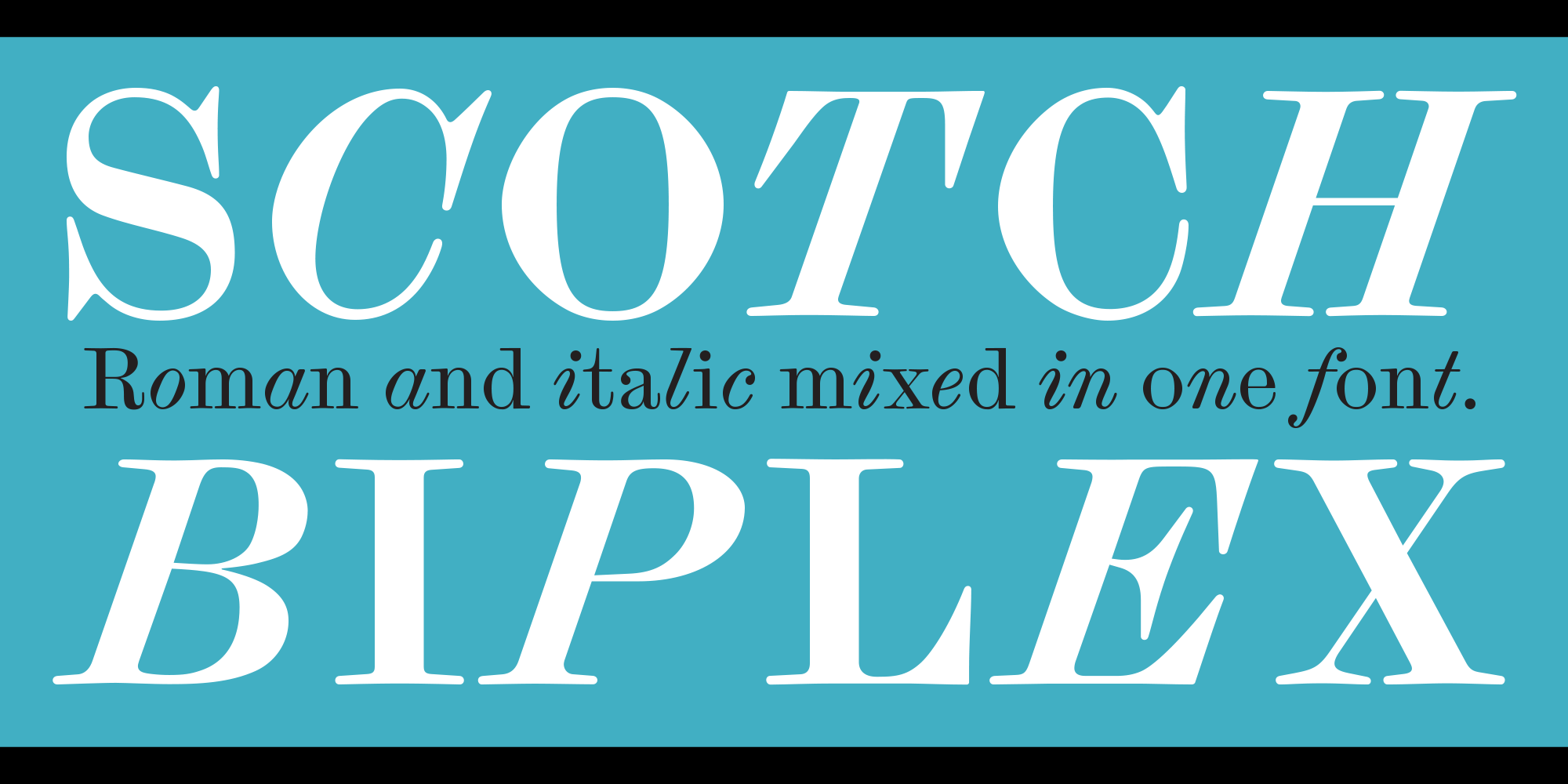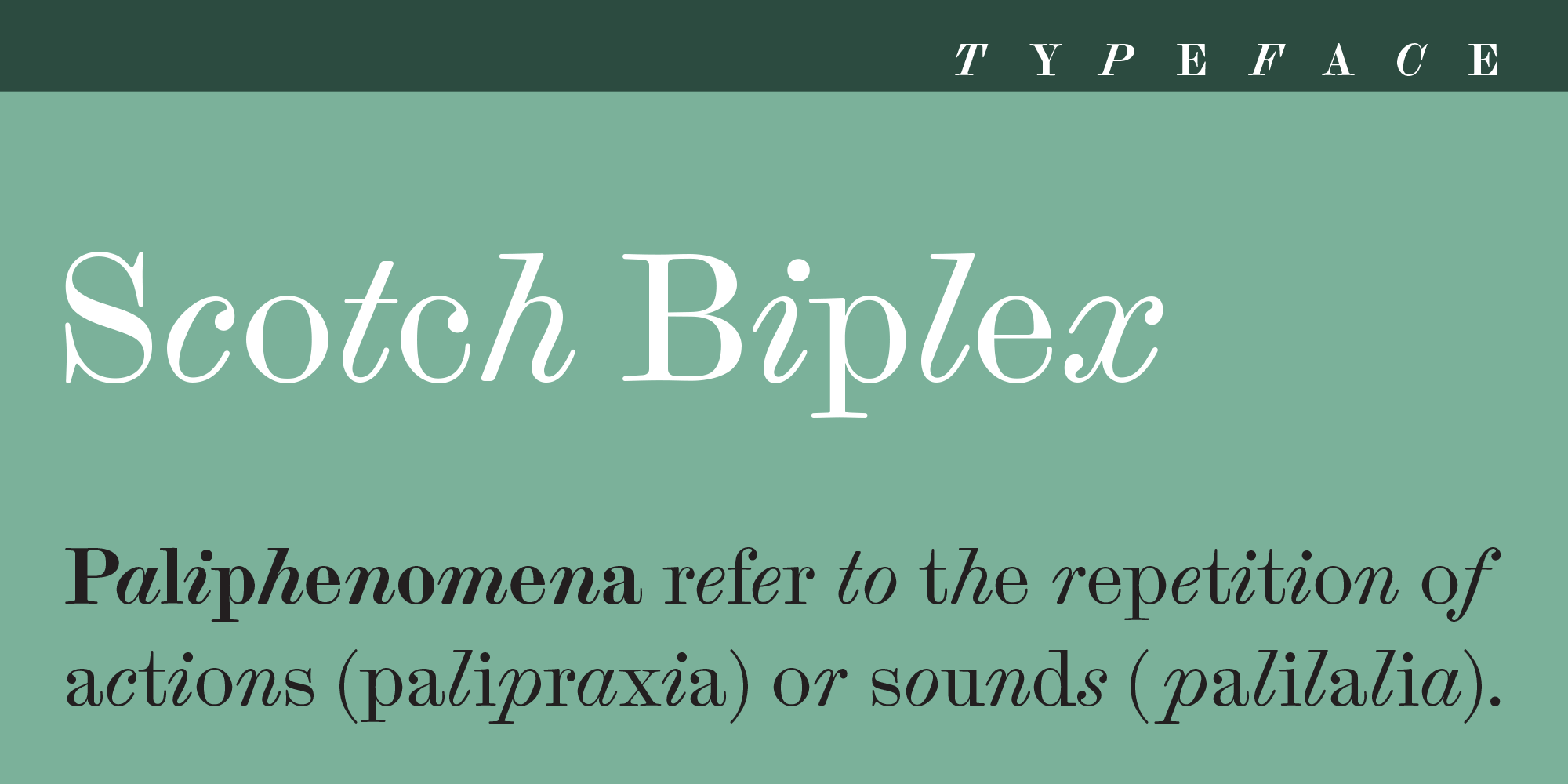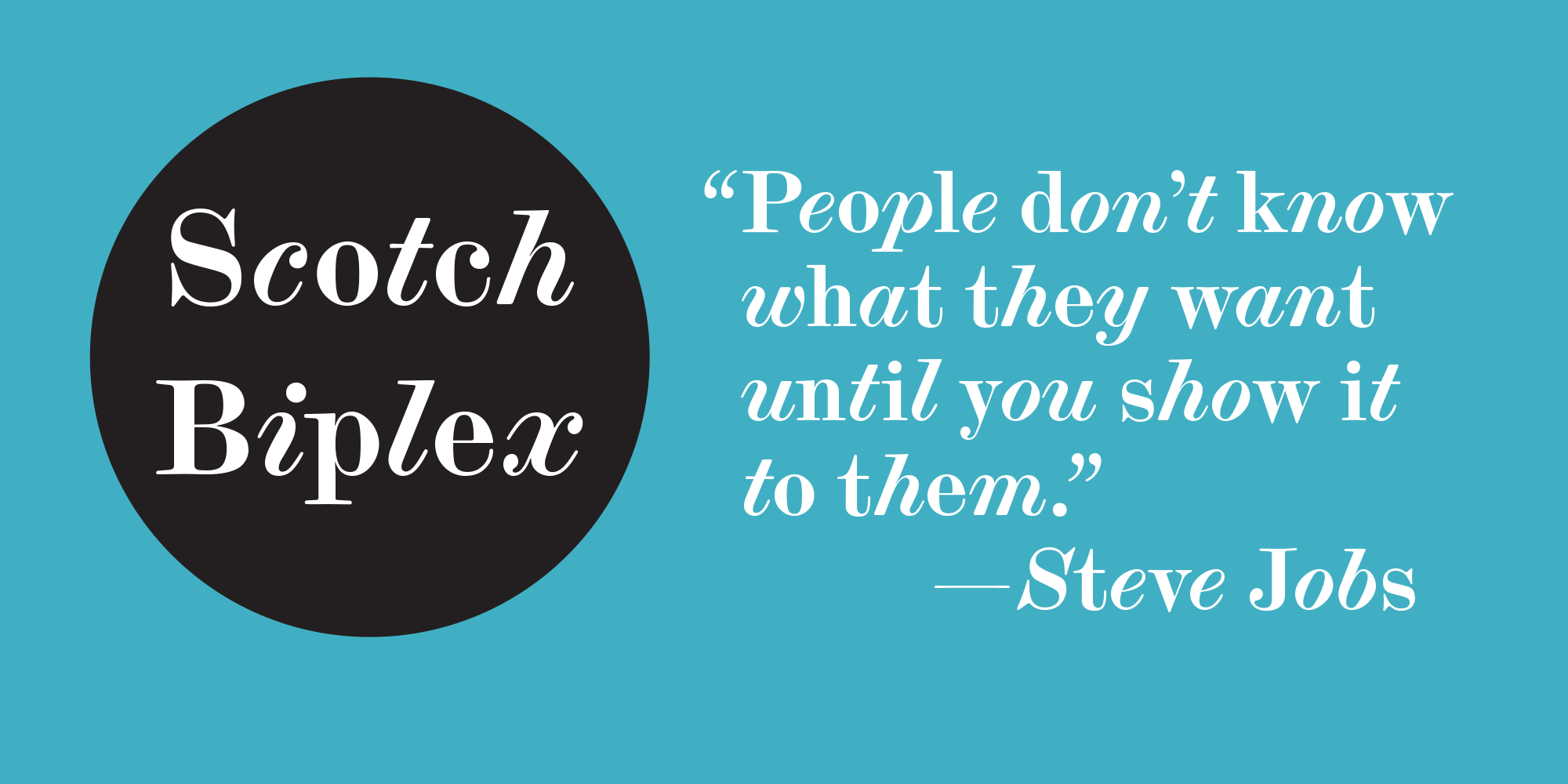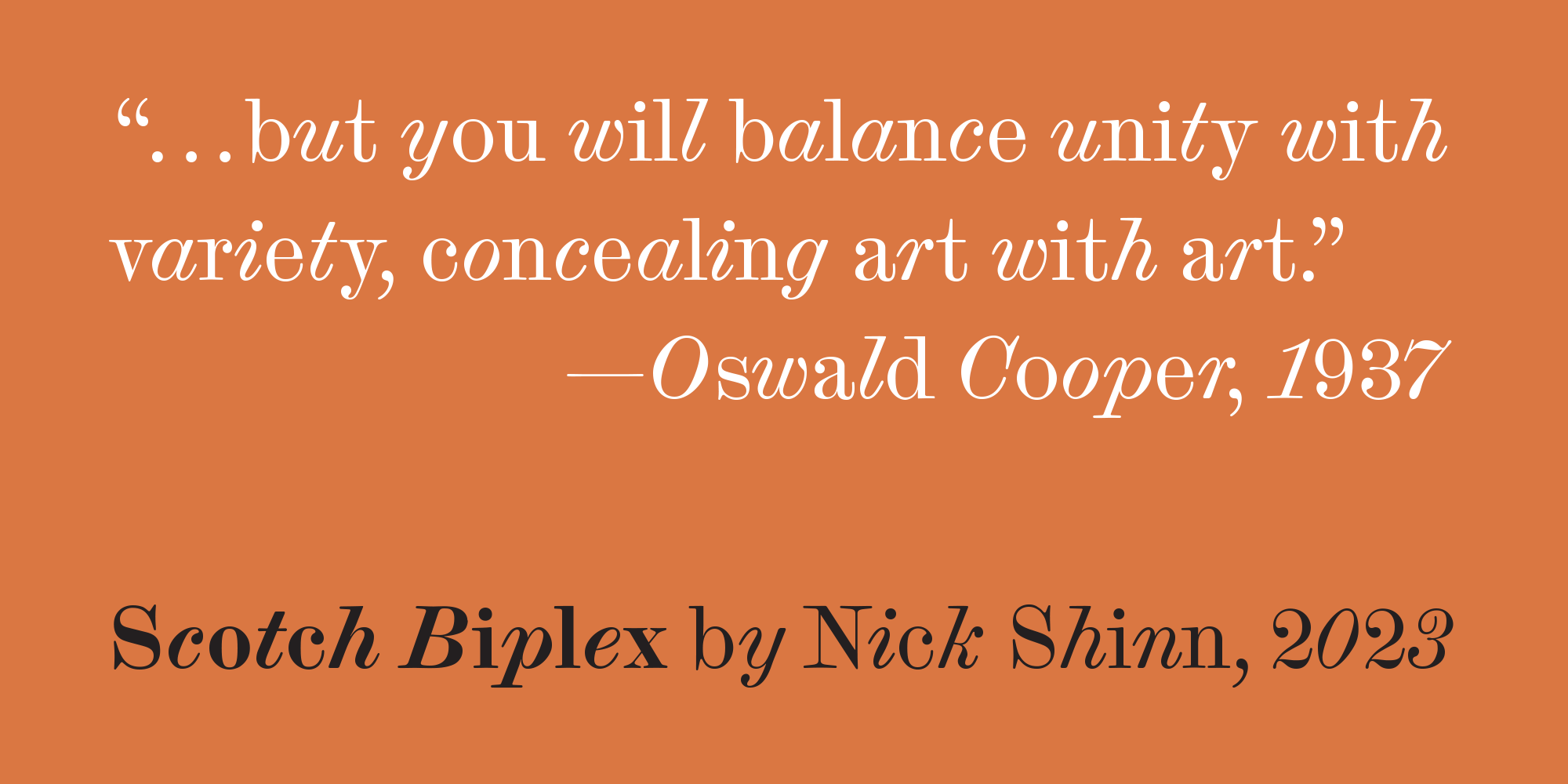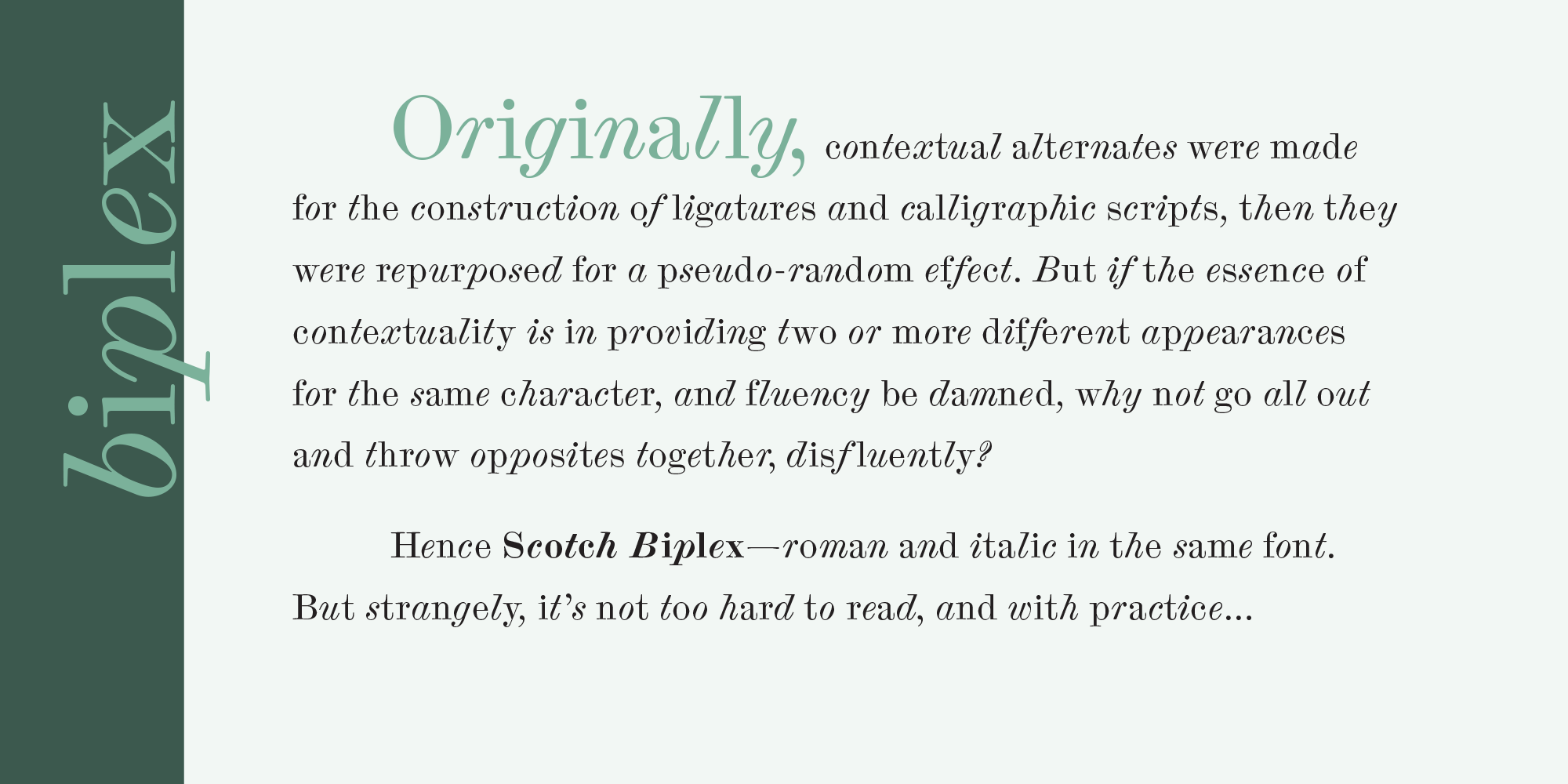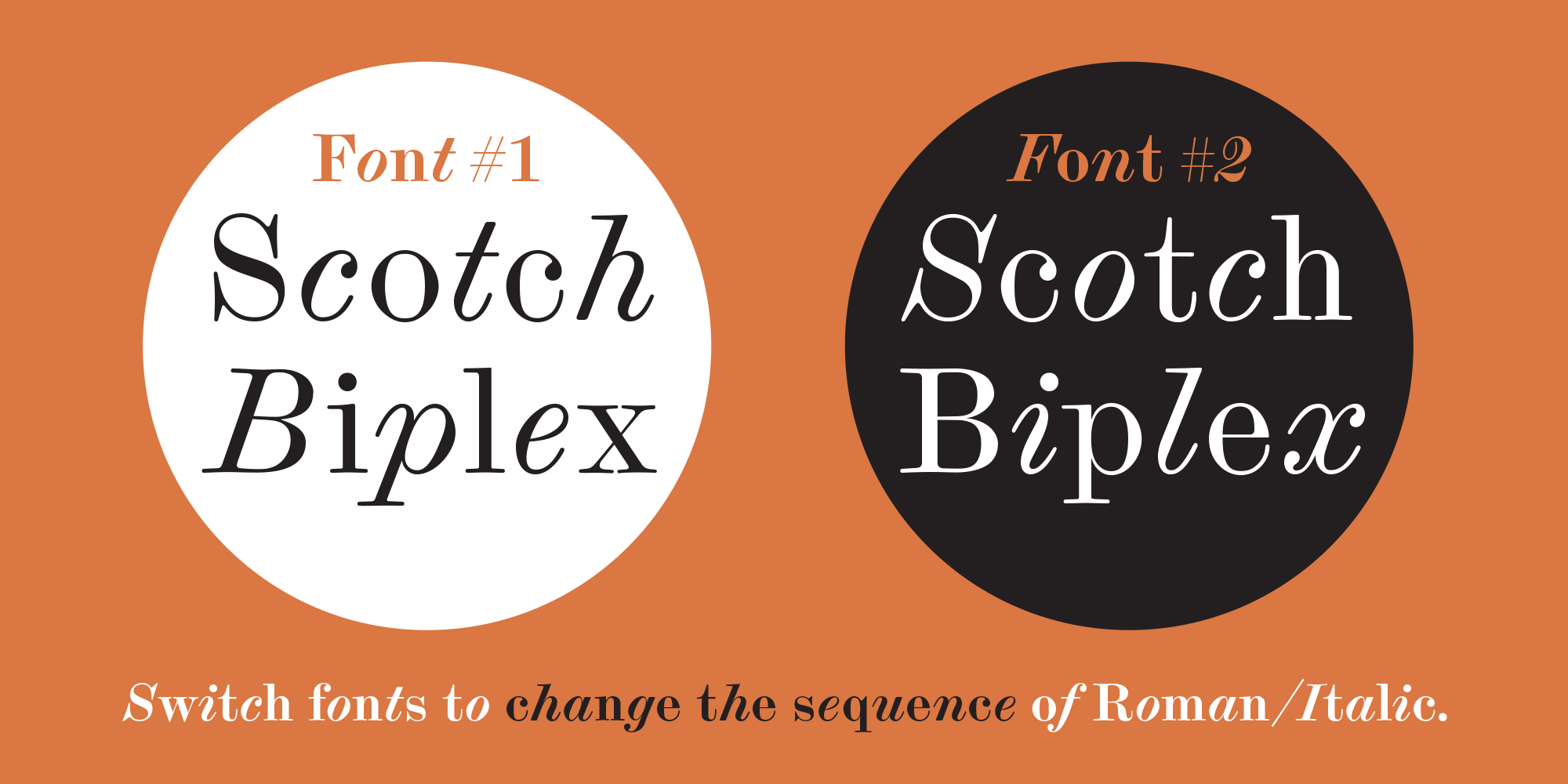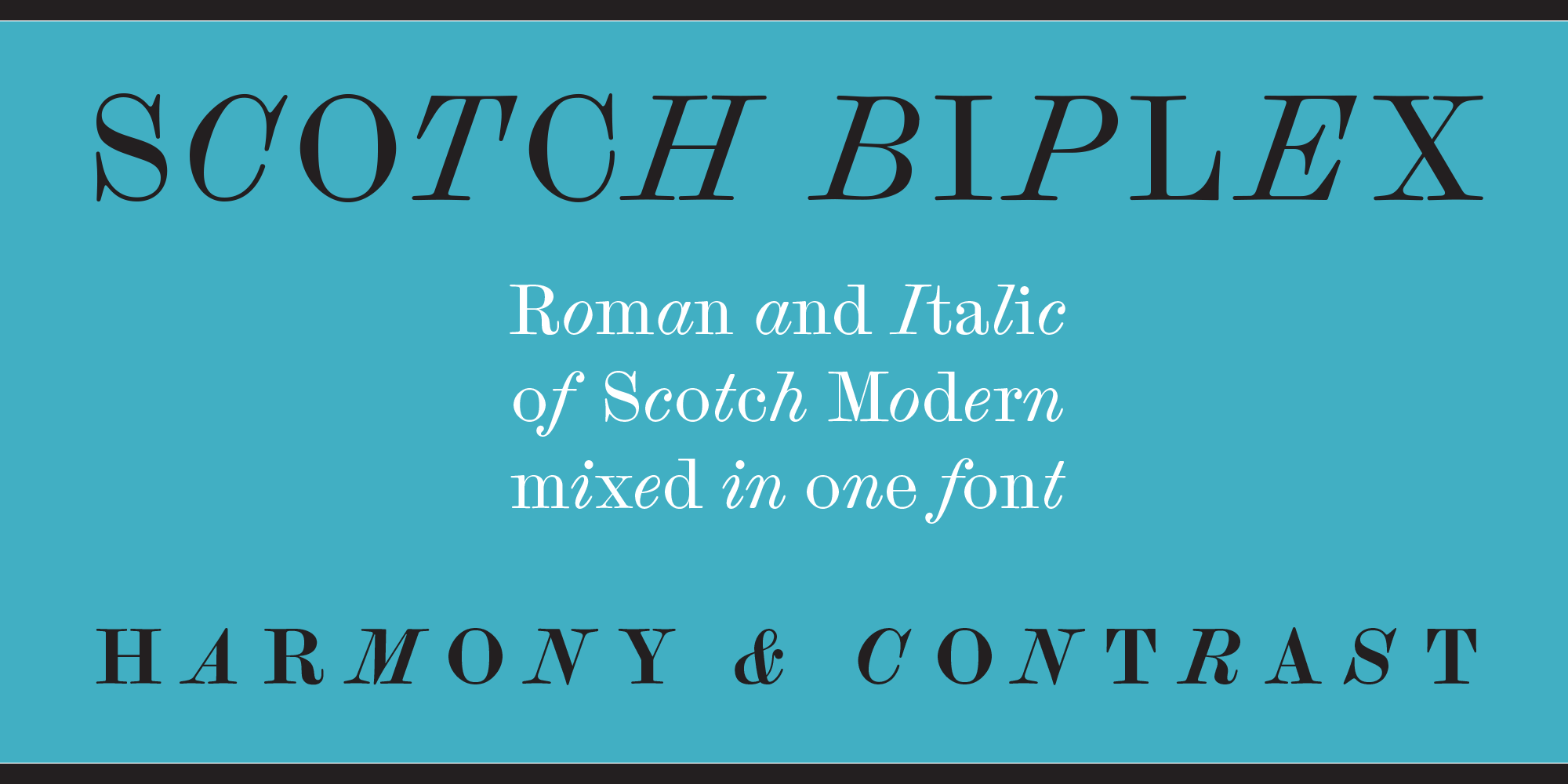
Scotch Biplex (4 fonts)
In Scotch Biplex, there is a rigorous application of extreme stylistic contrast, mixing the Roman and Italic of Shinntype’s Scotch Modern. This genre seemed to be the best bet for alternating roman and italic, with the very obvious disparity of construction (not least the 20° of slant difference) balanced against the even colour provided by both the similarity of widths between the component styles, and the enormous pot-hook serifs of the italic lower case, which fill out the mid-x area. Notably, the angle of italic slant matches the roman diagonals, as can be seen in the title of this post. It was meant to be!